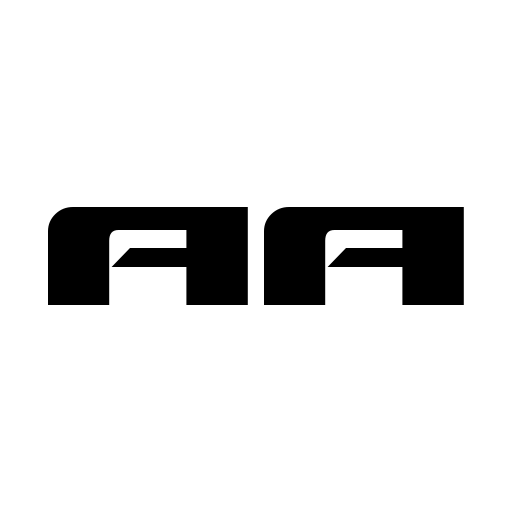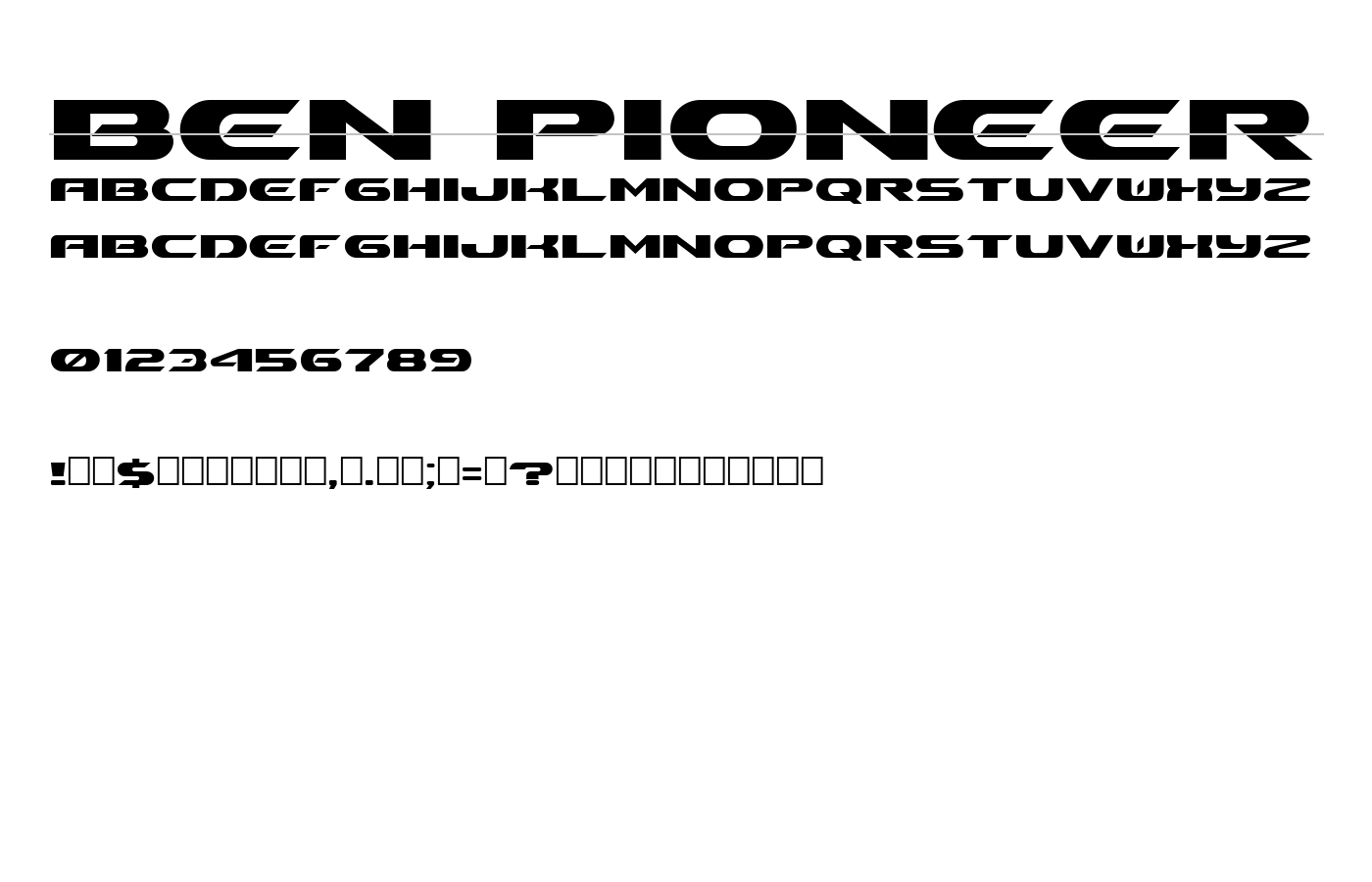
Ben Pioneer is a bold, futuristic sans serif font with strong geometric shapes and sharp angles. Its wide letterforms and high contrast strokes convey a powerful, modern vibe, making it ideal for striking headlines, logos, and branding projects that aim for a dynamic and adventurous look. This font works best where impact and originality are important, such as technology, sports, or sci-fi themed designs.
Ben Pioneer Font